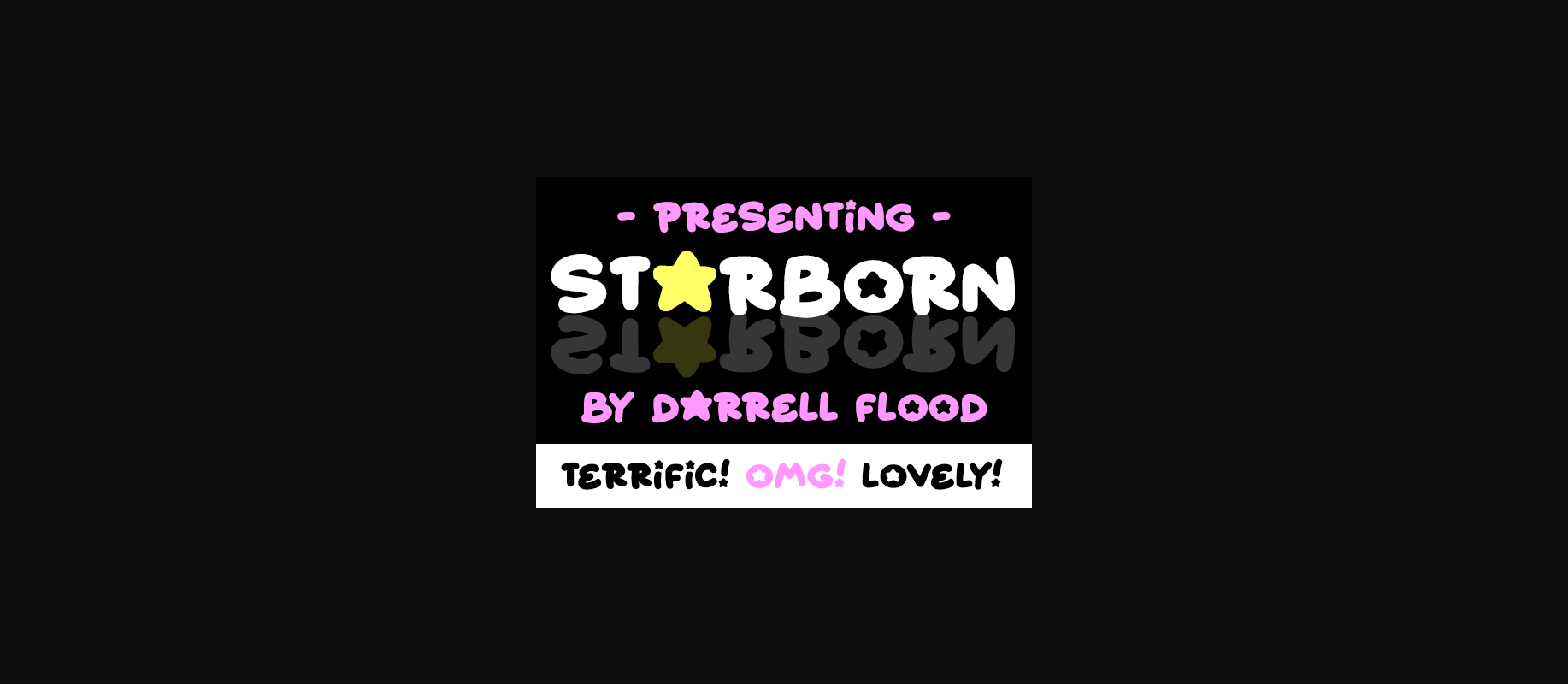
HomeDecorative FontsStarborn Font Decorative Fonts Starborn Font FacebookXPinterestWhatsApp 1 of 1 ... About Starborn Font A cute, marker style font with rounded stars replacing some character elements. Perfect for children’s books and classroom themes! DOWNLOAD ON CREATIVE FABRICAThis font is sold and delivered by Creative Fabrica. Font Canyon may earn a commission if you buy through this link. People also explored Pegasus Font Shattered Dreams JNL Font Arau Wonder YWFT Selek Marceline Font False Note Font Happy Birthday Font Gilbey Platina Script – Regular Font 313 0 TagsStarborn Font Previous articleHegran FontNext articleBig Guy Font LEAVE A REPLY Cancel reply Comment: Please enter your comment! Name:* Please enter your name here Email:* You have entered an incorrect email address! Please enter your email address here Website: Save my name, email, and website in this browser for the next time I comment. Personal Use Free Whitelight Personal Use Free Read more about this font Eits Personal Use Free Read more about this font Talking on Personal Use Free Read more about this font Dakwart Letter Personal Use Free Read more about this font BLOG Where to Buy American Fonts Online in 2024 Where to Buy American Fonts Online: The Ultimate Guide for 2024 Looking for the perfect American font to elevate your design projects? You're in the... Fonts That Capture the Spirit of New York City Free vs Paid Fonts: Why Investing in Premium Fonts Is Worth It Modern Sans-Serif Fonts That Brands Love in 2025